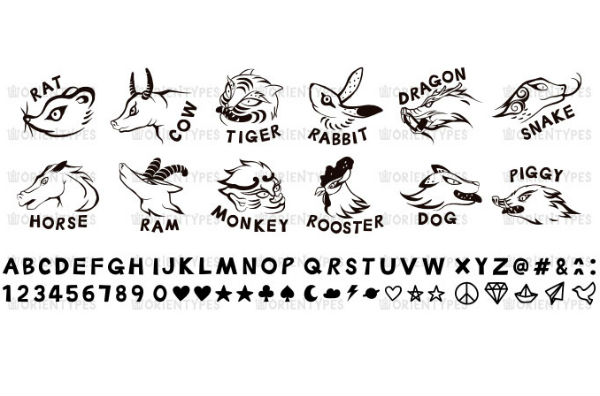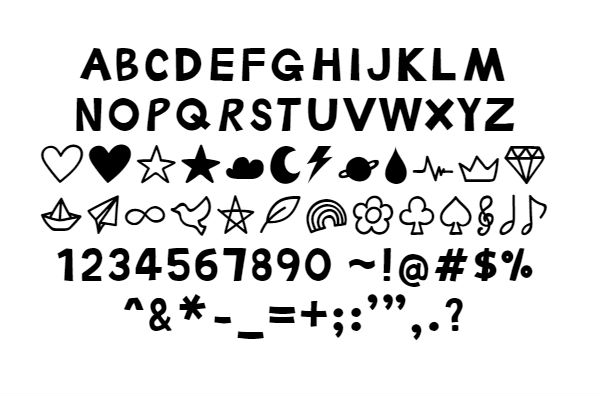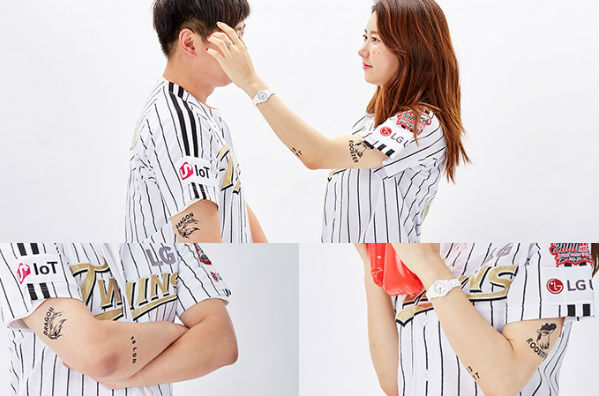
The Birth of a Unique Typographic Style: Asian Folk Tattoo Font
As I sat in my small studio, surrounded by sketchbooks and scattered papers, I couldn’t help but feel a surge of creativity. The blank page in front of me seemed to whisper, “What if?” And just like that, an idea was born. I began to envision a typographic style that combined the elegance of traditional Asian art with the boldness of modern design. This fusion of styles would eventually become the Asian Folk Tattoo Font, a project that would take me on a journey across cultural boundaries.
The Asian Folk Tattoo Font was born out of a Kickstarter project that brought together 12 Chinese Zodiac animals in a unique Korean folk style. The result is a typeface that is both timeless and modern, perfect for anyone looking to add a touch of cultural flair to their designs. As a designer, you’ll appreciate the versatility and uniqueness of this font, making it a valuable addition to your toolkit.
Asian Folk Tattoo Font Key Features
- Unique Characteristics: Hand-drawn, intricate designs inspired by traditional Asian art; includes a range of ornate and elegant elements
- Style Variations: Includes 5 different style variations to suit various design needs
- Language Support: Supports multiple languages, including Chinese, Japanese, Korean, and many others
Designer Review: Asian Folk Tattoo Font
At first glance, the Asian Folk Tattoo Font ✨ seems to have a lot going for it. The intricate, hand-drawn design elements and ornate flourishes evoke a sense of cultural heritage and tradition. The font’s use of bold lines and geometric shapes also adds a sense of strength and power. Additionally, the font’s versatility is a major plus, as it can be used for a wide range of applications, from tattoo designs to branding and marketing materials.
However, there are some limitations to the font that should be noted. ⚠️ The font’s complexity can make it difficult to read, particularly at smaller sizes. Additionally, the font’s use of bold lines and geometric shapes can sometimes make it feel a bit too busy or overwhelming. Furthermore, the font’s cultural sensitivity is a concern, as it may be perceived as appropriating or exoticizing certain cultural traditions.
Overall, the Asian Folk Tattoo Font is a visually striking and versatile font that can add a unique touch to a wide range of designs. However, it’s essential to carefully consider the font’s potential limitations and cultural implications before using it in a project.
- Works well for:
- Tattoo designs
- Handmade or craft-based designs
- Not ideal for:
- Body text or long passages of text
- Simple or minimalist designs
- Projects requiring high legibility
Use the Asian Folk Tattoo Font to add a touch of cultural authenticity to your designs.
Combine the font with other Asian-inspired elements, such as cherry blossoms or dragons, to create a cohesive look.
Experiment with different font sizes and colors to create visual interest and hierarchy in your design.
Use the Asian Folk Tattoo Font for:
Designing invitations and event materials for Asian-themed parties or events.
Creating cultural or educational materials, such as posters or brochures.
Designing logos or branding materials for businesses with an Asian flair.